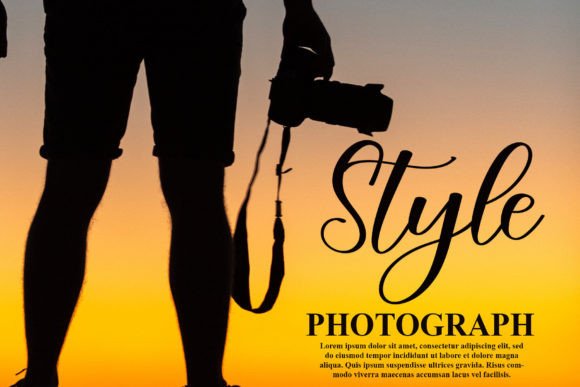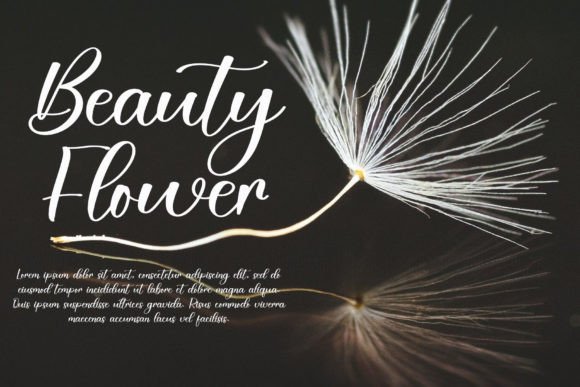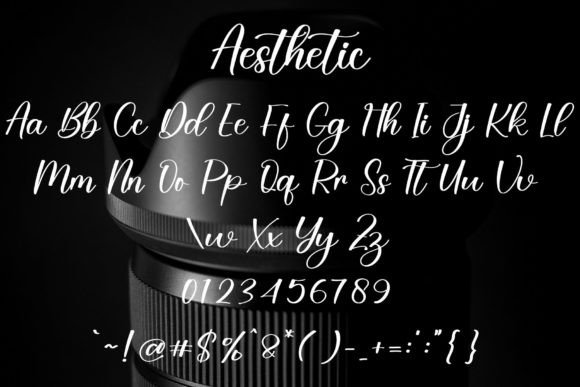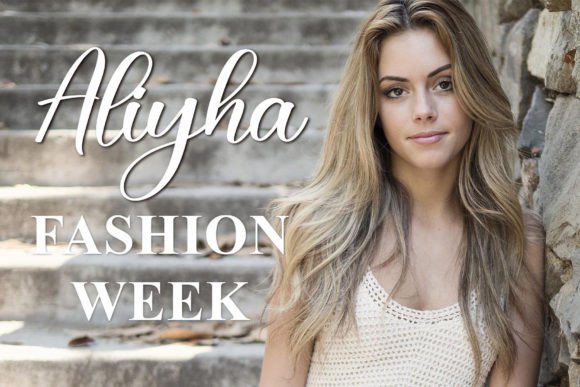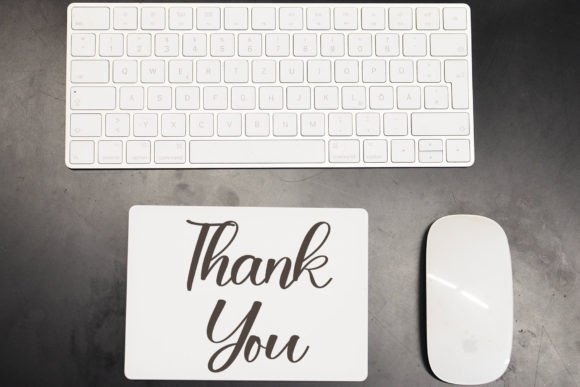
Adding a Touch of Elegance with the Aesthetic Font
Have you ever stared at a blank page, trying to decide on the perfect font to bring your creative vision to life? You know that moment when you’re searching for the perfect combination of style and sophistication to make your design stand out from the crowd?
That’s exactly where the Aesthetic Font comes in – a stylish handwritten font that exudes a contemporary atmosphere and timeless charm. Designed to enhance the beauty of your projects, this font is perfect for adding a touch of elegance to your designs, from elegant invitations to creative digital art.
For designers, the Aesthetic Font is a valuable tool that can elevate your work and make it truly unforgettable. With its balanced and varied style, this font is sure to add a unique touch to your projects and leave a lasting impression on your audience.
Aesthetic Font Key Features
- Unique Characteristics: Features a unique blend of elegant and modern design elements, making it suitable for various design projects.
A Designer’s Review of “Aesthetic Font”
Overall, I’d say “Aesthetic Font” is a solid choice for designers looking to add a touch of elegance to their work. ✨ The font’s versatility shines through in its various weights and styles, making it suitable for a wide range of projects, from luxury branding to modern web design.
One of the things that really stands out about “Aesthetic Font” is its legibility. ✨ The font’s clean lines and subtle curves make it easy to read, even at smaller font sizes. Additionally, the font’s x-height is well-proportioned, which helps to create a sense of balance and harmony in typography.
- ⚠️ The font’s aesthetic, while beautiful, may not be suitable for every project. For example, it may not be the best choice for projects that require a more playful or whimsical tone.
- ⚠️ The font’s character set is somewhat limited, which may make it difficult to use in projects that require a wide range of languages or special characters.
Overall, I’d give “Aesthetic Font” a solid 4 out of 5 stars. While it may not be perfect for every project, it’s a great choice for designers looking to add a touch of sophistication and elegance to their work. With a little creativity and experimentation, I’m confident that “Aesthetic Font” can help take any project to the next level.
Alternatives to Aesthetic Font
Playfair Display is an elegant, high-end serif font ideal for luxury branding, invitations, and magazine covers. Its intricate details and luxurious feel make it a suitable choice for designers seeking a sophisticated aesthetic. Compared to Aesthetic Font, Playfair Display has a more refined and classic appearance, making it suitable for formal and high-end projects.
Great Vibes is a modern script font perfect for creating a friendly, approachable atmosphere in branding, packaging, and advertising. Its flowing lines and elegant curves make it suitable for designers seeking a friendly and inviting aesthetic. Compared to Aesthetic Font, Great Vibes has a more casual and approachable feel, making it suitable for projects that require a friendly tone.